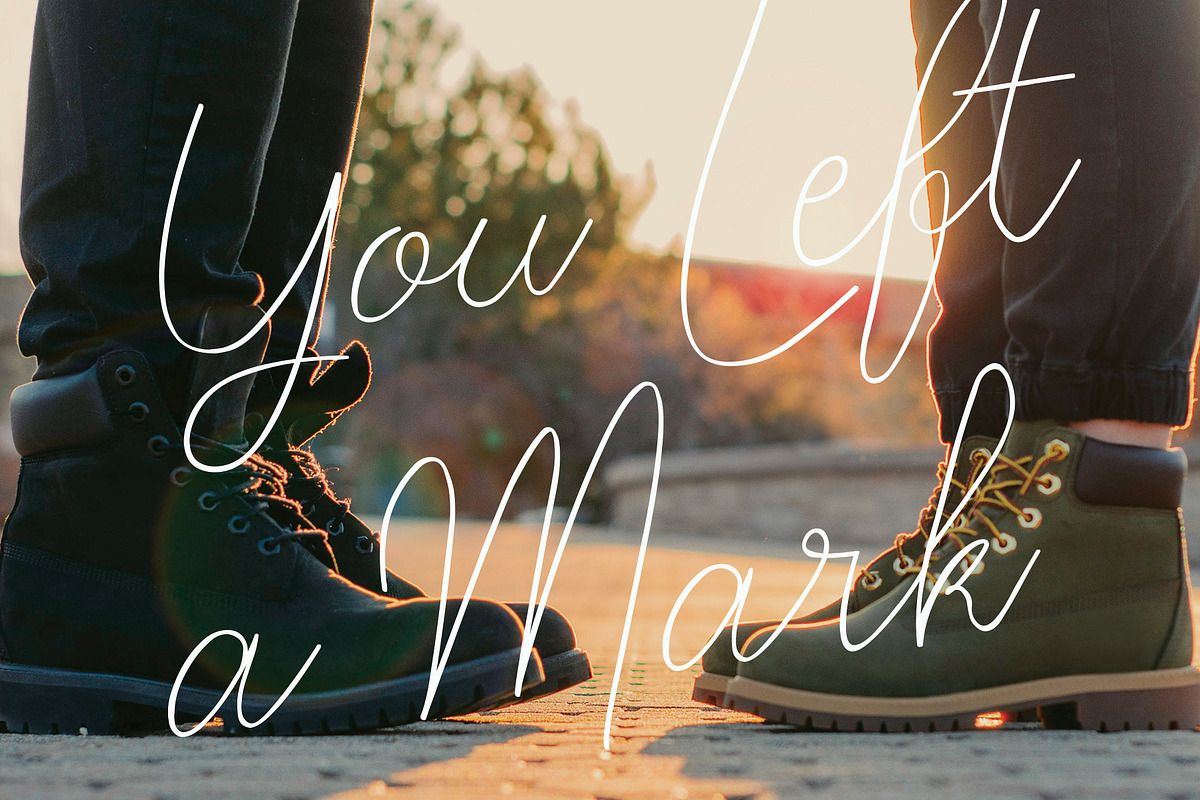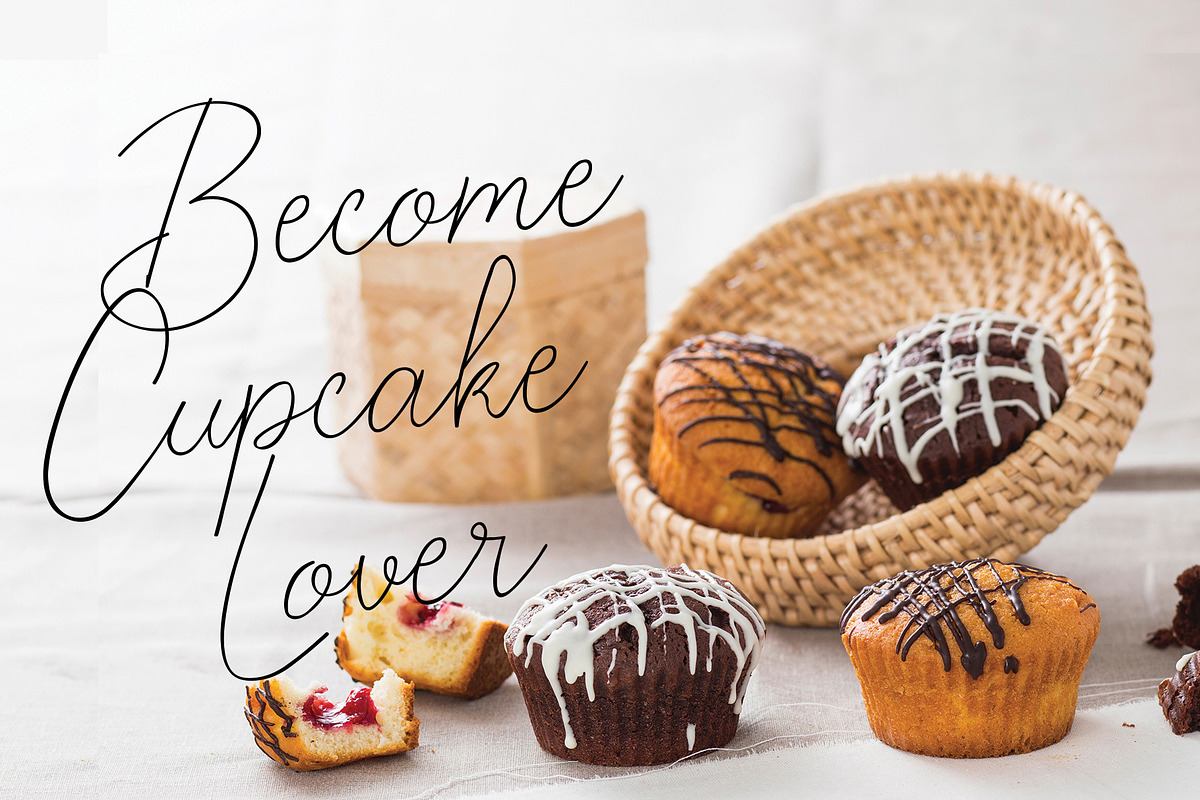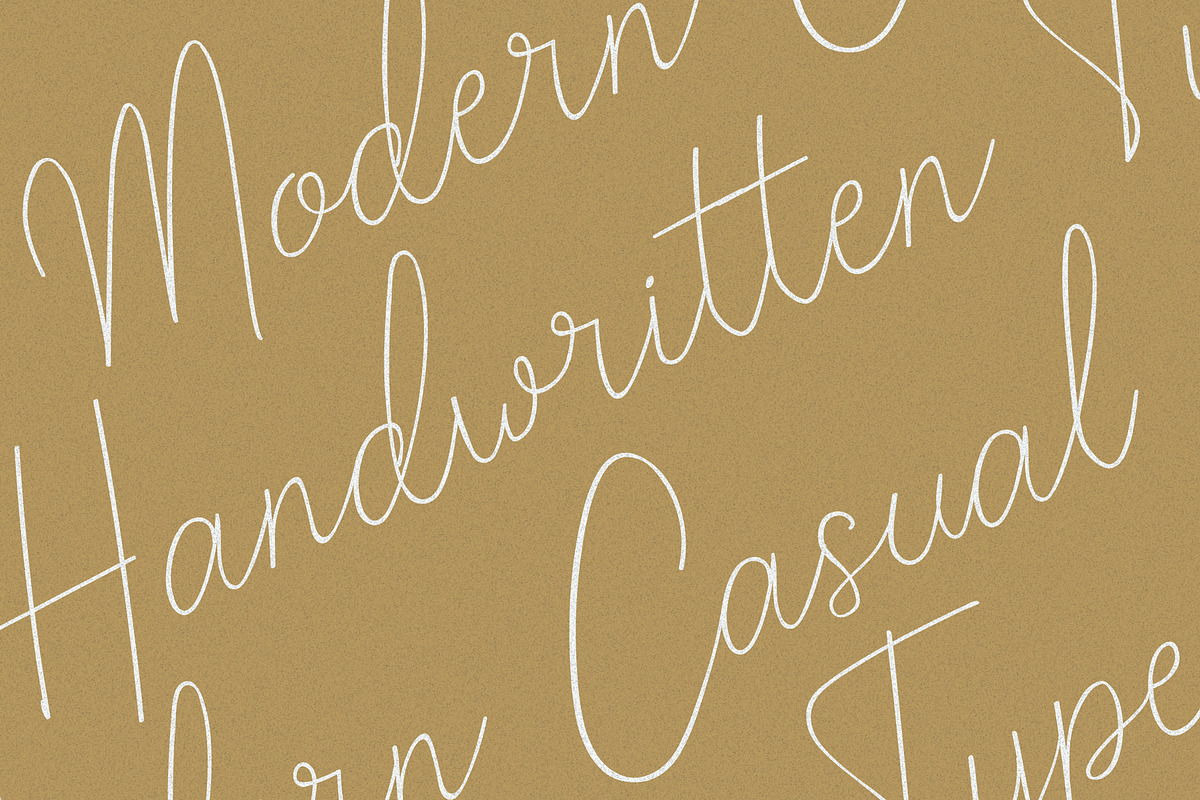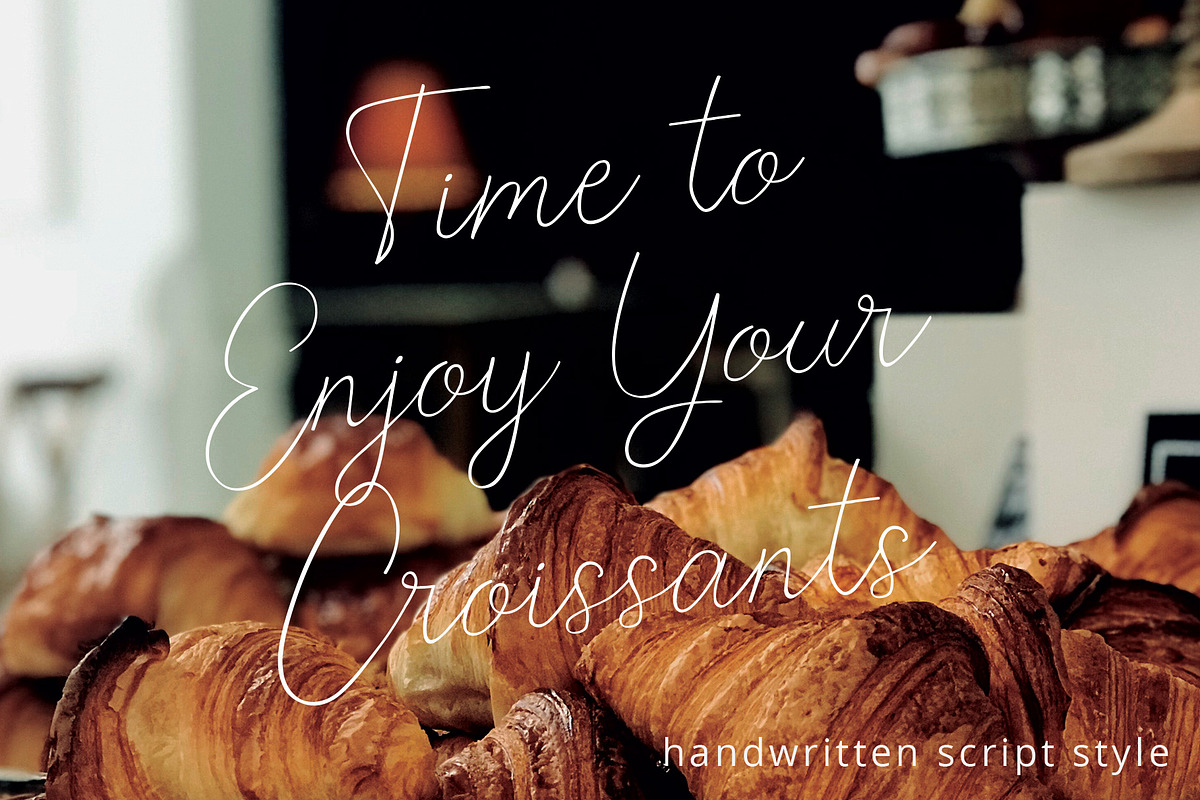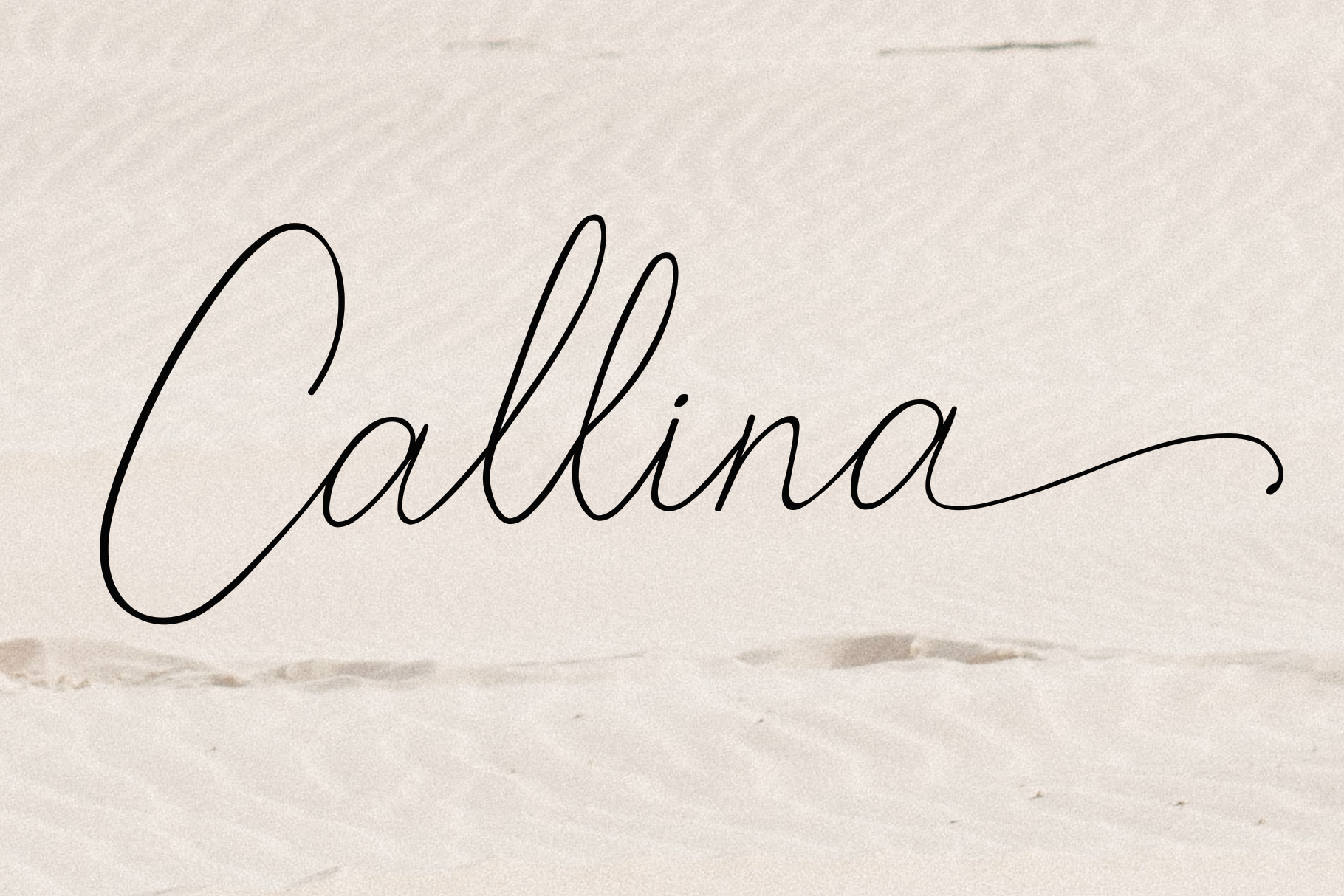
Callina Handwriting Font
Introducing Callina - a new modern & fresh script with handwriting style. This font will make your design look elegant, natural and stylish.
Callina handwriting Font is perfect for any awesome projects such as photography, watermark, signature, quote design, social media posts, advertisements, logos & branding, invitation, product designs, label, stationery, wedding designs, product packaging, special events or any project that need handwriting taste.